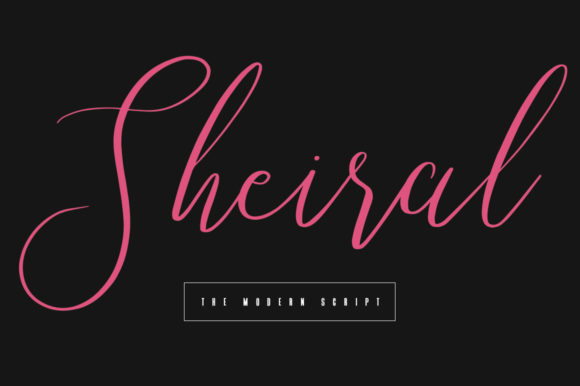
Unleash your creativity with Sheiral Font, the epitome of elegance and fluidity in the world of script fonts. Designed by the ingenious Maulana Creative, Sheiral captivates with its enchanting flow, making it the perfect choice for expressing your heartfelt sentiments in a visually stunning manner.
Step into a world of timeless beauty, where words dance with grace and sophistication. Sheiral Font is not just a font; it's an artistic expression that transforms your designs into breathtaking masterpieces. Whether you're crafting wedding invitations, thank-you cards, heartfelt quotes, or greeting cards, Sheiral adds a touch of magic that leaves a lasting impression.
Experience the allure of Sheiral in logos and business cards, where it elevates your brand identity with a touch of elegance and uniqueness. Its varying baseline, smooth lines, and gorgeous glyphs create a visual symphony that commands attention. And with stunning alternates at your fingertips, you can unleash your creativity and add a personal touch to every project.
Sheiral Font is more than just a font; it's an invitation to explore the realm of artistic expression. Its versatility knows no bounds, making it the perfect companion for any design project that demands a handwritten touch. Let your imagination soar and let Sheiral guide you towards creating designs that captivate and inspire.